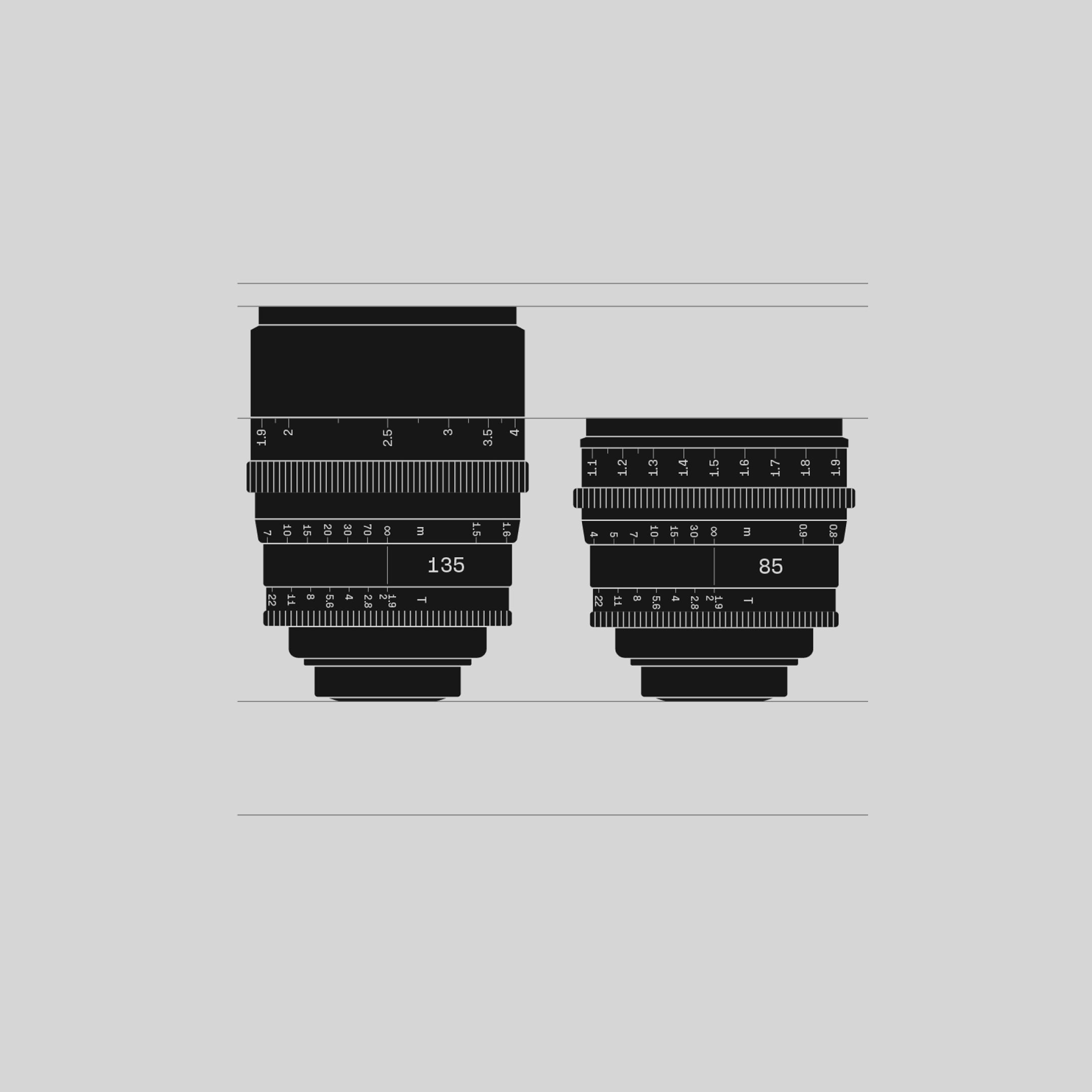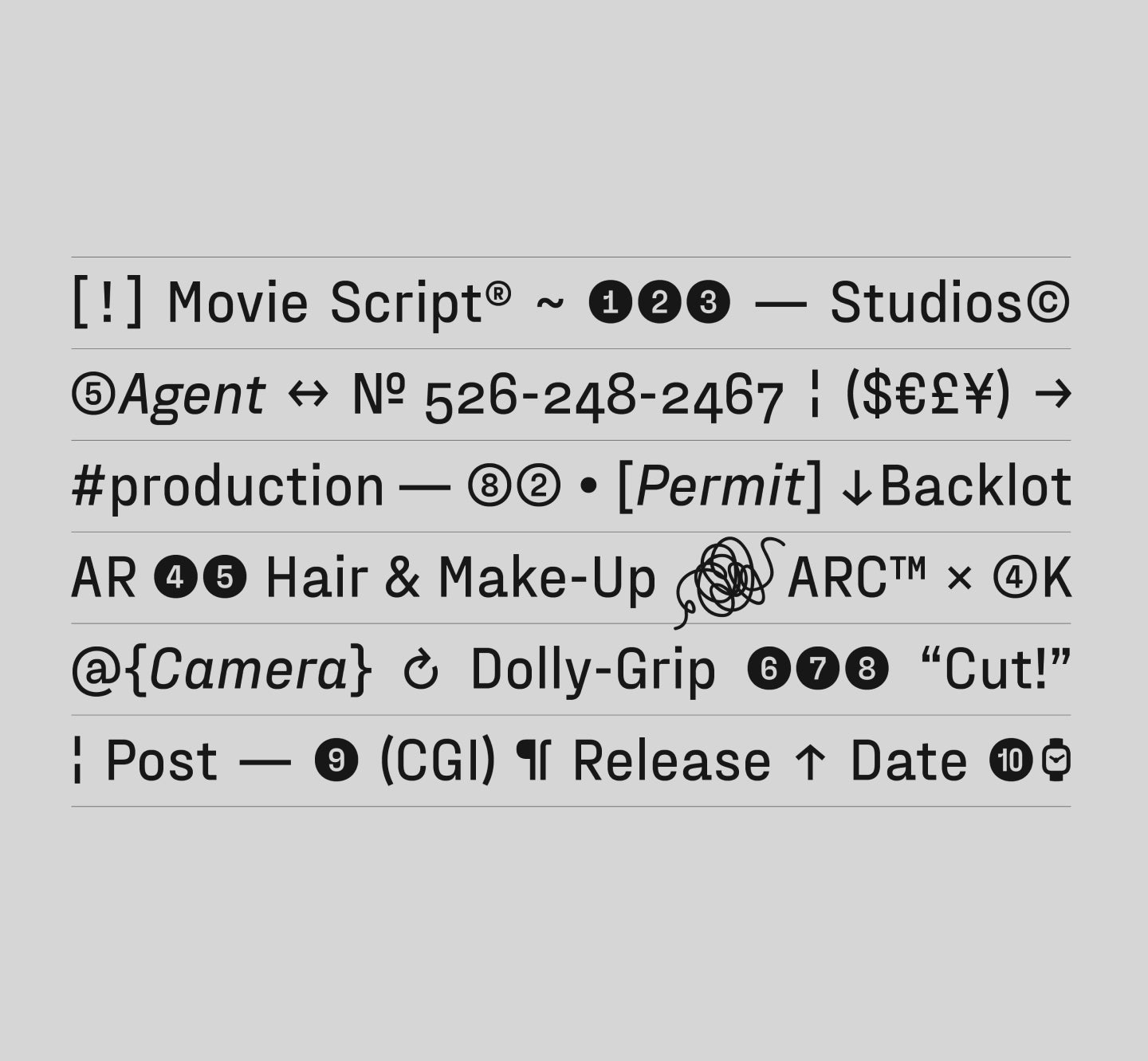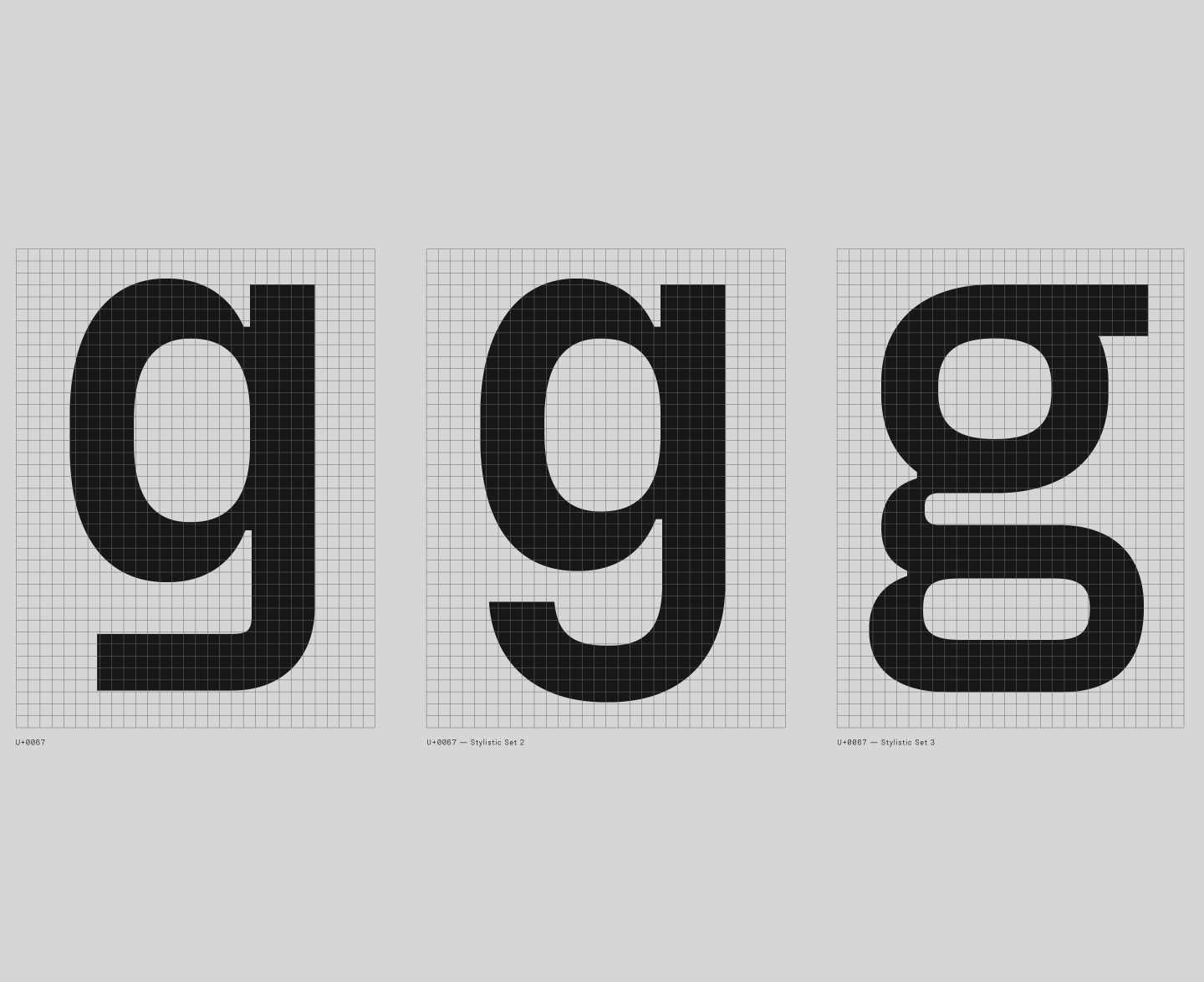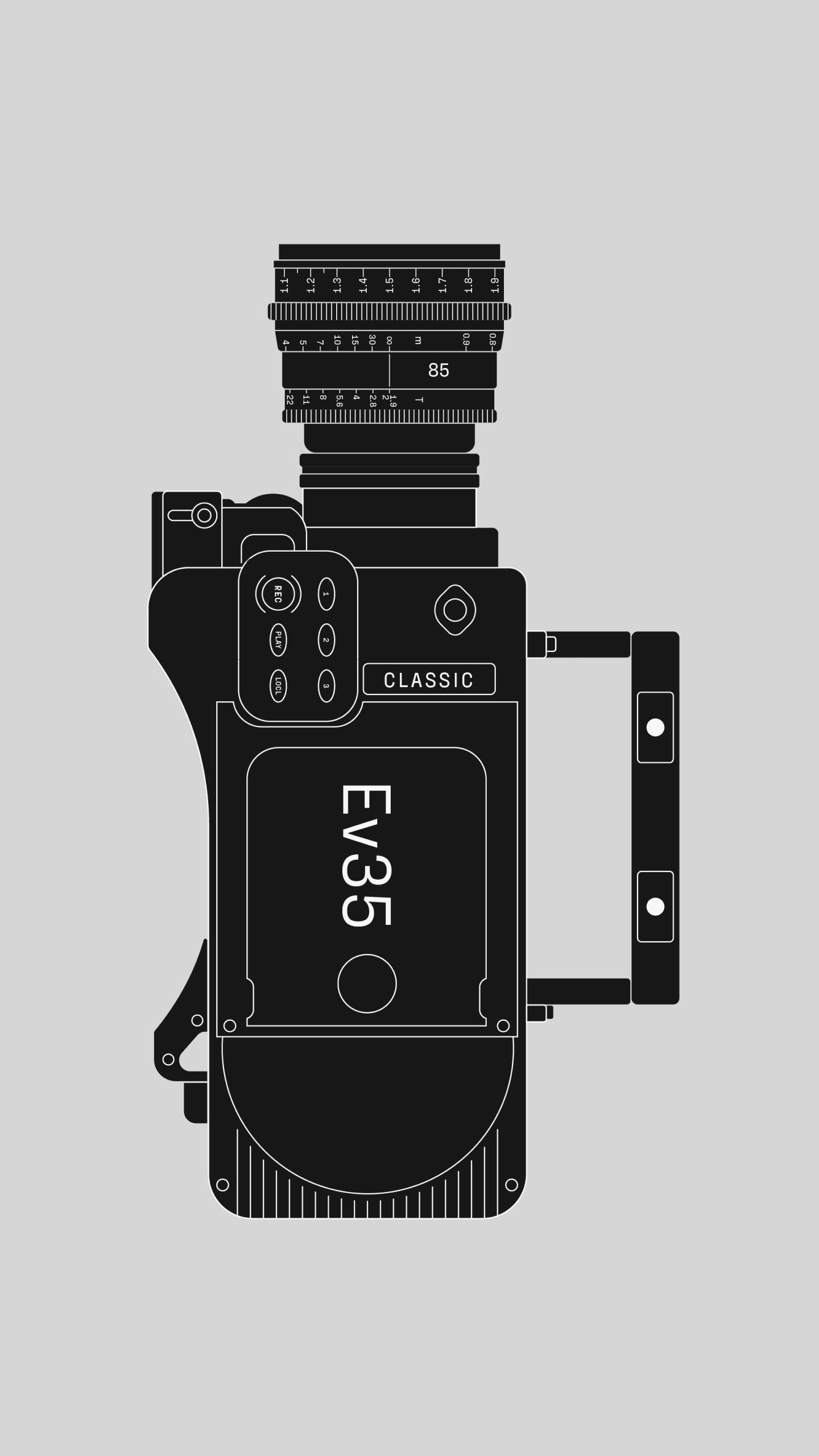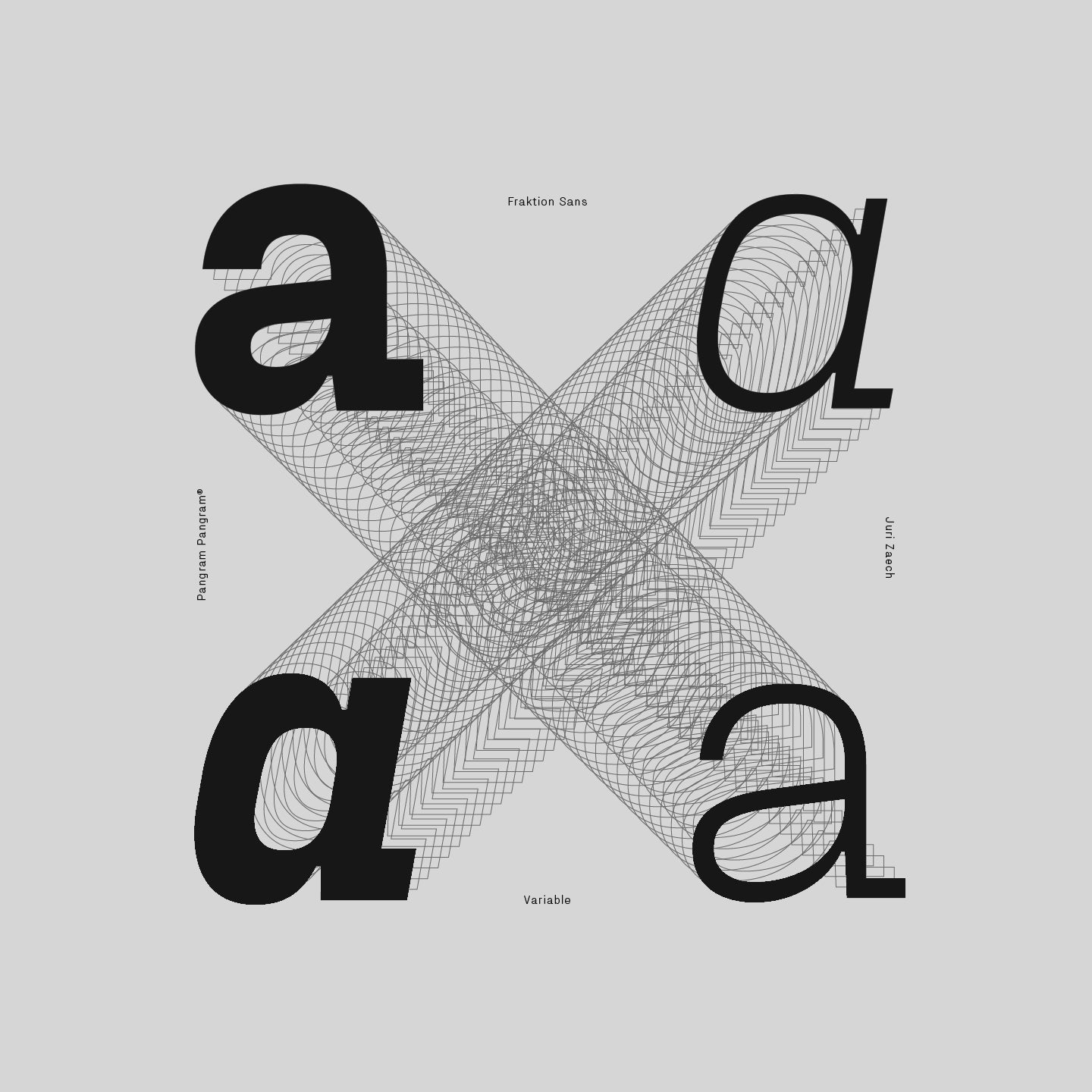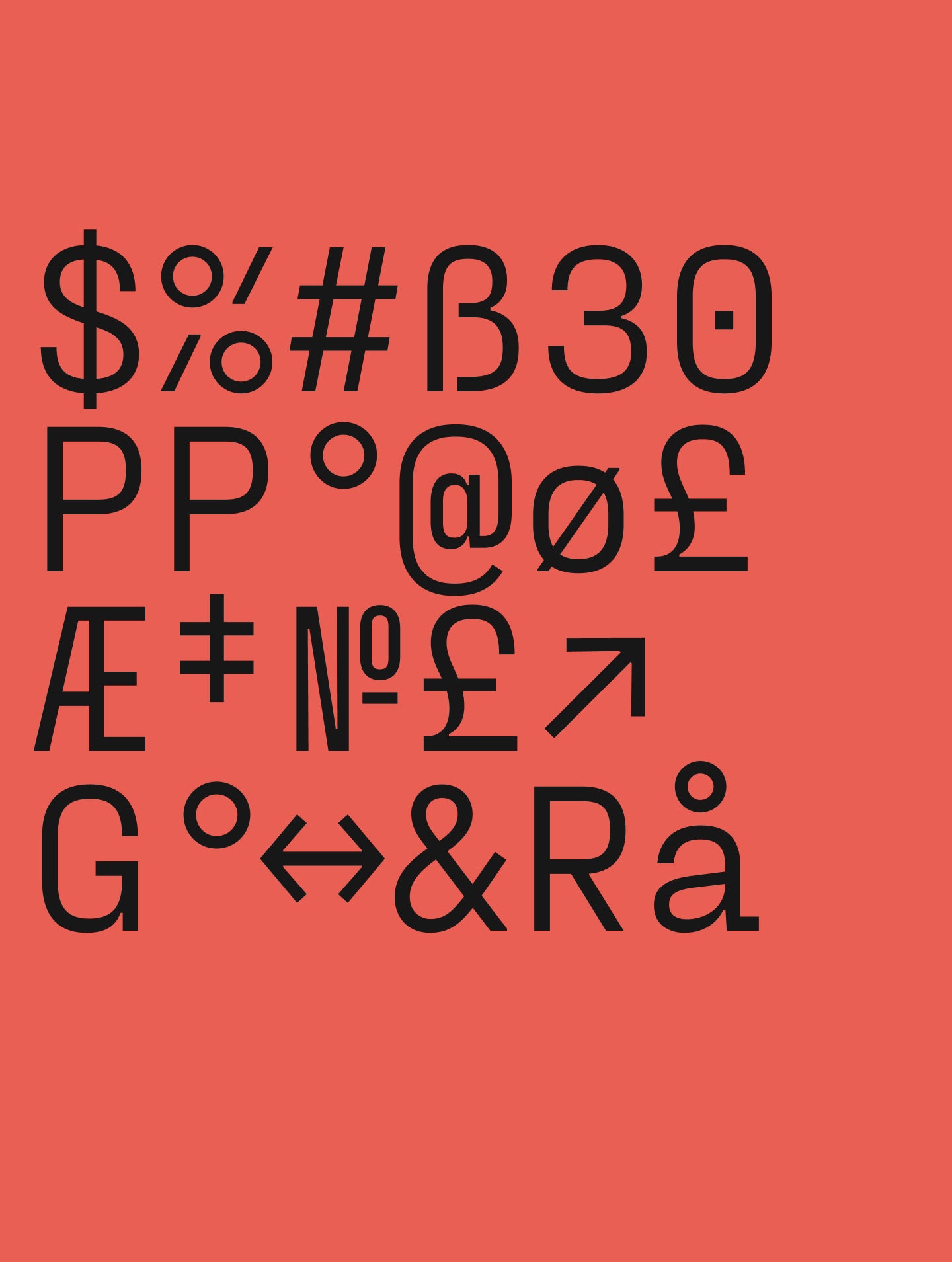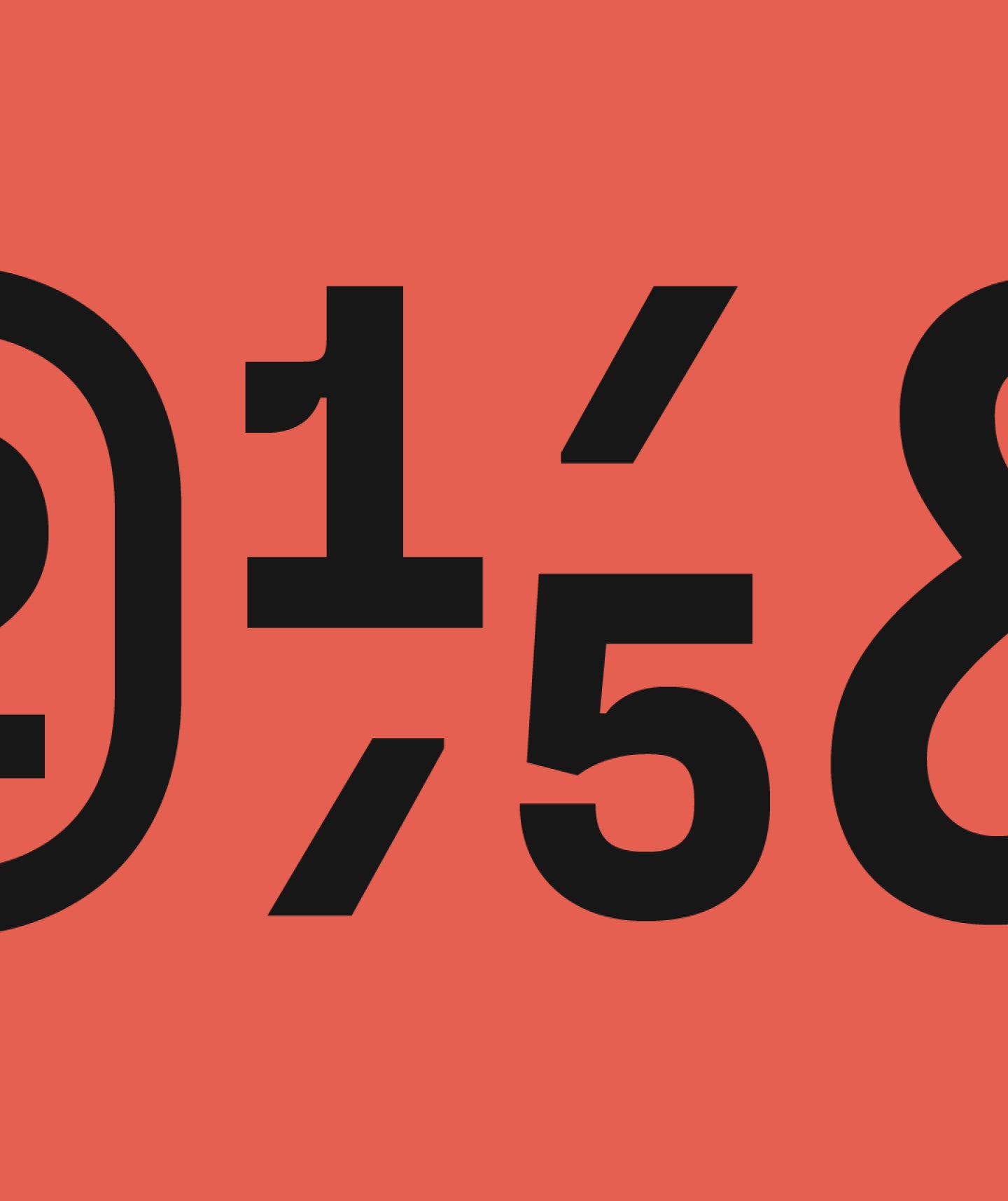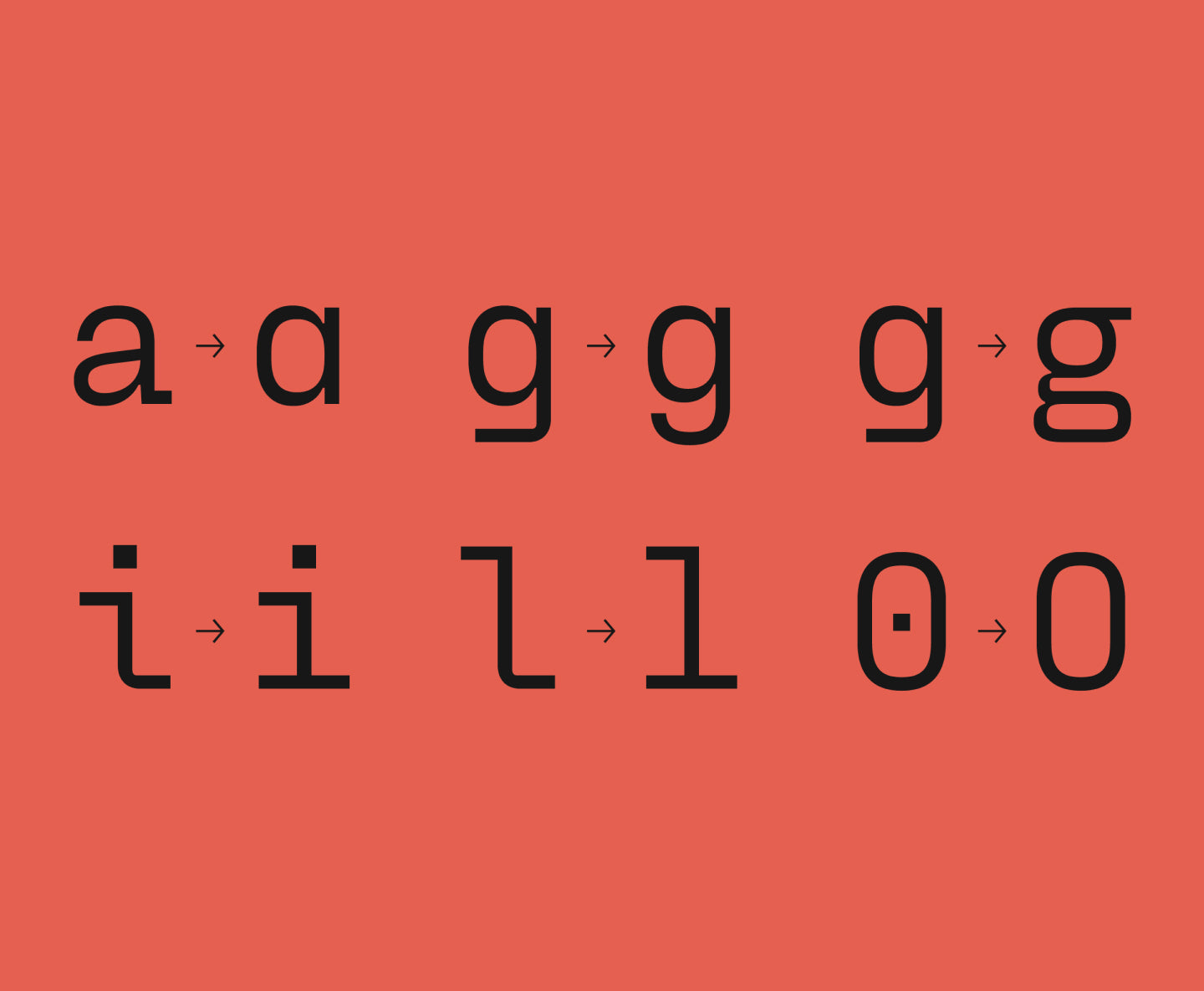
Fraktion
Forget neutrality, Fraktion got just enough edge to raise an eyebrow.
Structured to misbehave.
Fraktion Sans is a contemporary grotesque exploring the space between mechanical sturdiness and expressive clarity. While its inspiration stems from vintage signage lettering, the final design is a rather far departure.
The square shape and the compact capitals are the only remnants of the original influence and when set in all-caps the industrial spirit is vaguely present. Even so the typeface has been shaped to a modern, versatile allrounder with a slight technical feel that works great in sober applications for screen and in editorial - and still maintains character to be a strong voice in branding. An exaggerated spur on the lowercase 'a' and ink traps are defining visual characteristics just as the squared-off rounds’ true verticals help create a steady cadence.
The proportional Sans is complemented by a fixed-width design: Fraktion Mono. The refitted letter shapes of the monospaced design add a surprising playfulness to a genre that generally feels more technical, making Fraktion Mono’s cuts the more informal bunch of the family. Both typefaces offer plenty of typographic solutions through OpenType features like case sensitive punctuation, stylistic alternates, fractions and slashed zero. The 7 upright weights each have an italic counterpart and both sets are available as variable fonts.